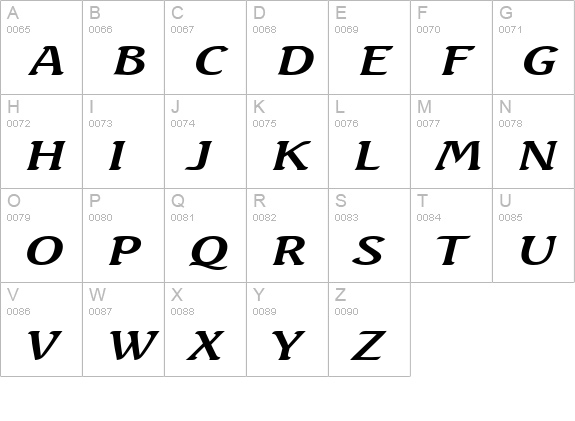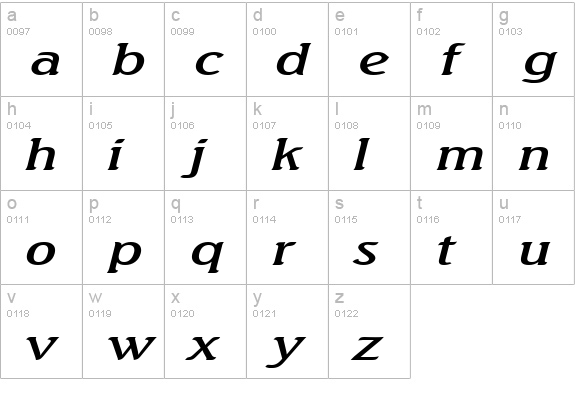
Beach Extended Italic Font Details
Beach Extended Italic is a distinctive, extended-width, italic variant in the Beach typeface family \xE2\x80\x94 well suited to design and typography projects.
Beach Extended Italic font is a captivating and elegant typeface that exudes a sense of sophistication and style. Its flowing lines and unique letter shapes make it perfect for adding a touch of class to any design project. This font is versatile and works well for both headers and body text, making it a great choice for a wide range of creative applications. The best part about Beach Extended Italic font is that it is completely free to download at FontsMarket.com. Whether you're a designer looking to enhance your projects or someone who simply appreciates beautiful typography, this font is a must-have addition to your collection. Don't miss out on the opportunity to elevate your designs with the stunning Beach Extended Italic font, available for free download now!